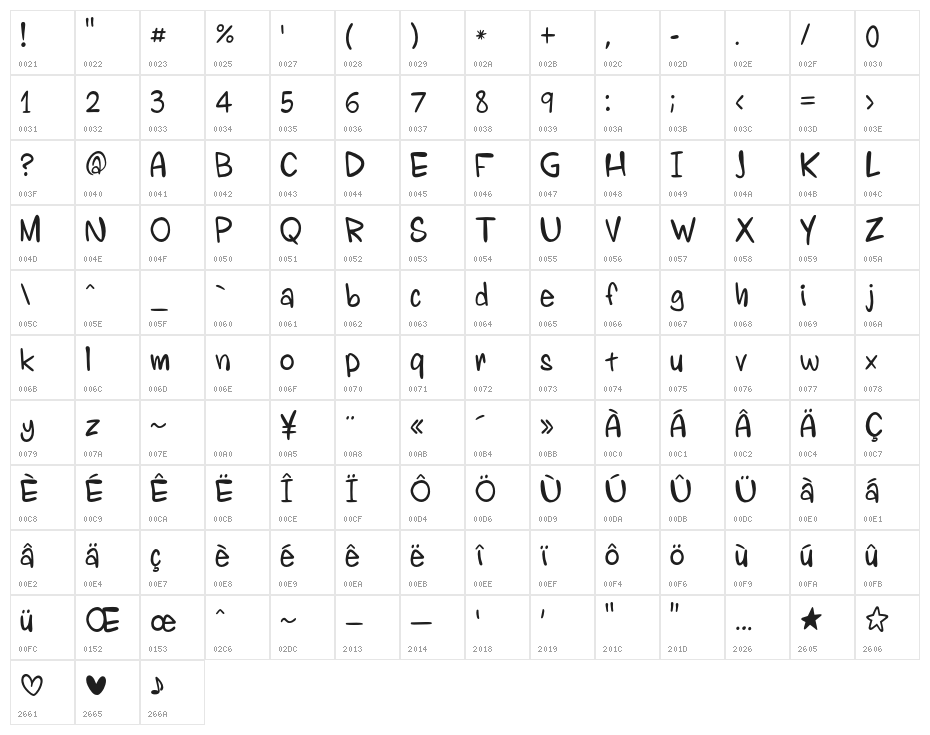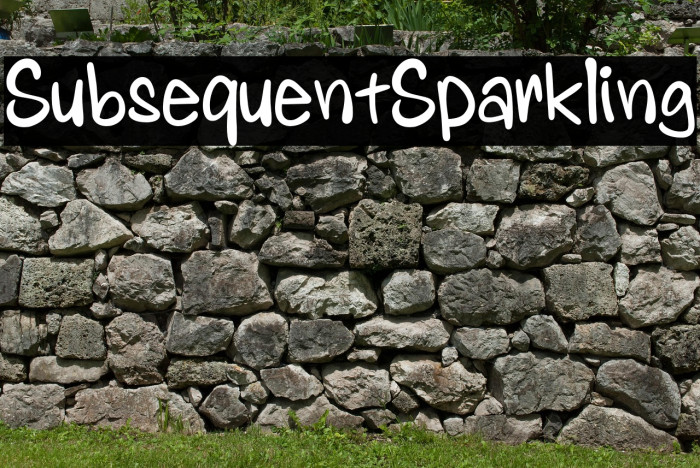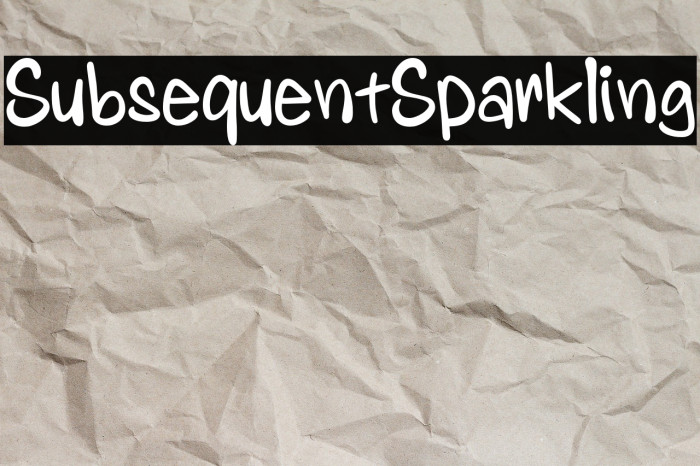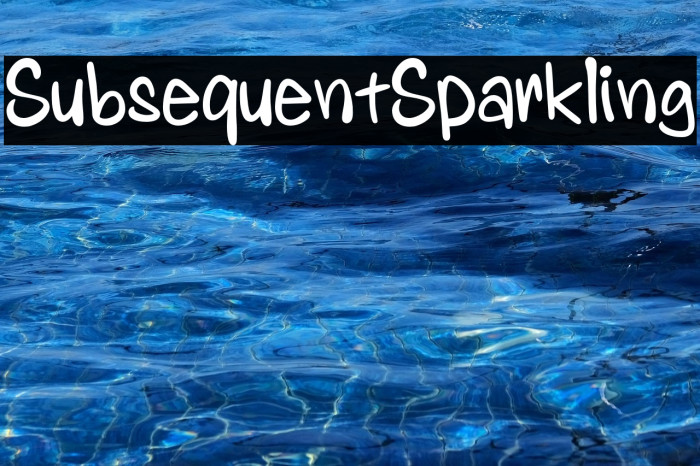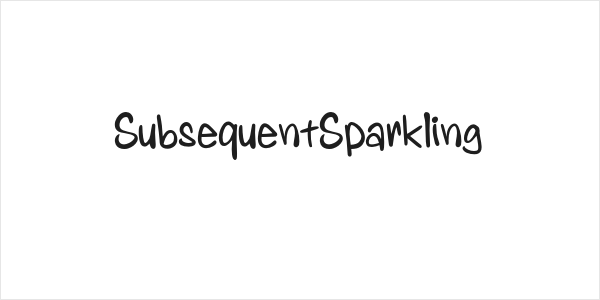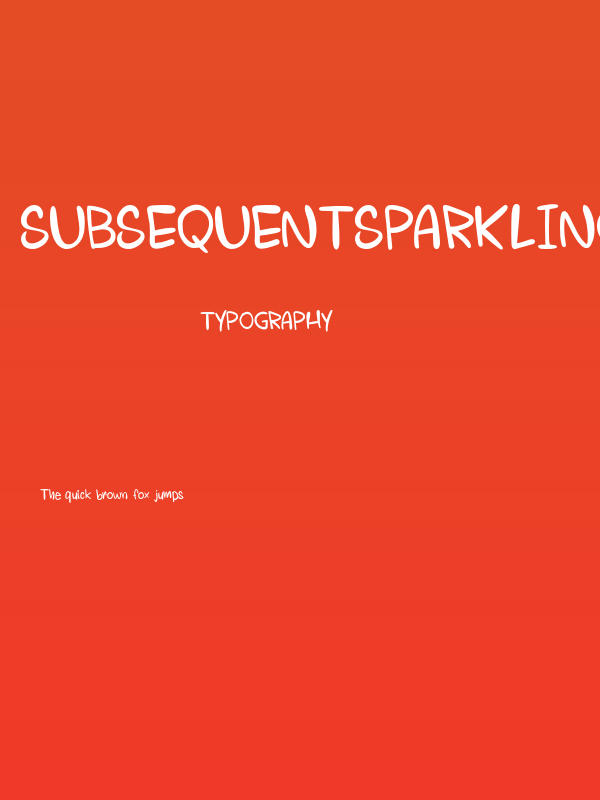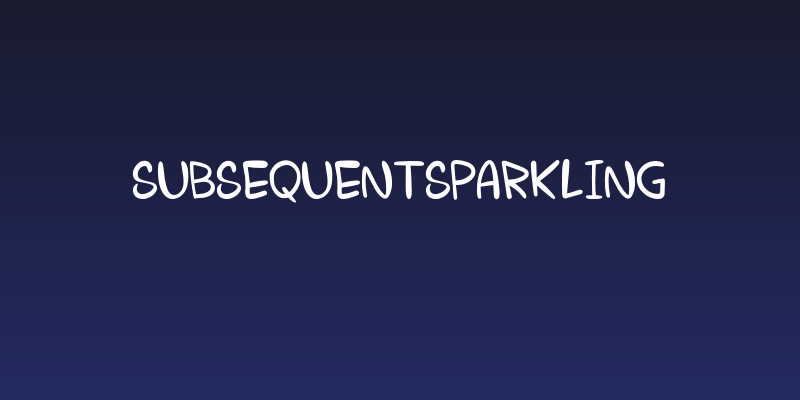
SubsequentSparkling Font
SubsequentSparkling Description
This playful and informal font features rounded, hand-drawn characters that exude a sense of whimsy and friendliness. The letters are slightly irregular, adding to the casual and approachable feel. Uppercase and lowercase letters maintain a consistent style, with smooth curves and a slight tilt that suggests movement. The numerals and special characters are equally expressive, fitting seamlessly with the overall aesthetic. This font is perfect for projects that require a touch of personality and creativity, such as children's books, greeting cards, or playful branding.
Overall StylePlayful
Use CaseHeadlines, Logos, Informal Text
Proposed ProjectsIdeal for children's books, greeting cards, playful branding, and creative projects.